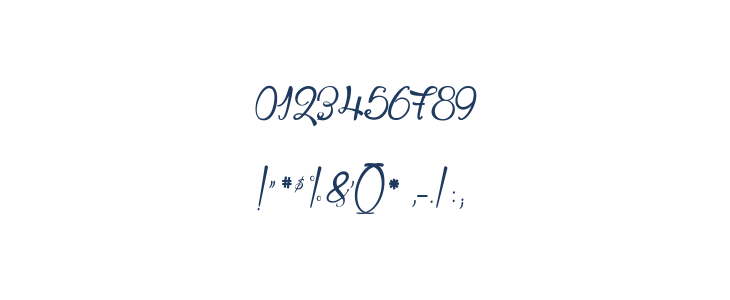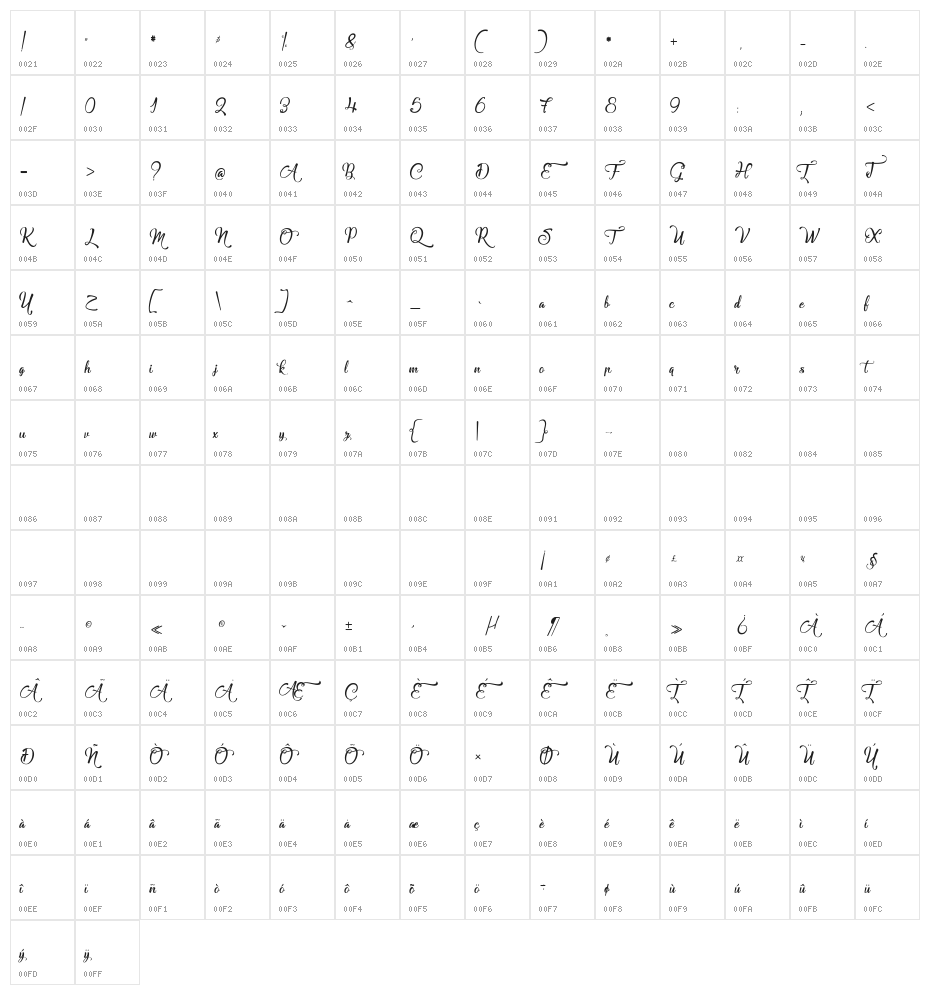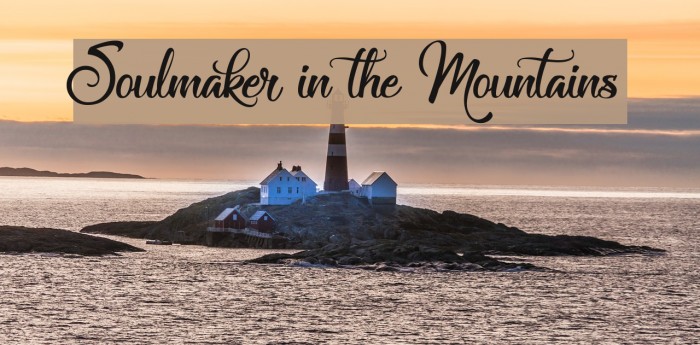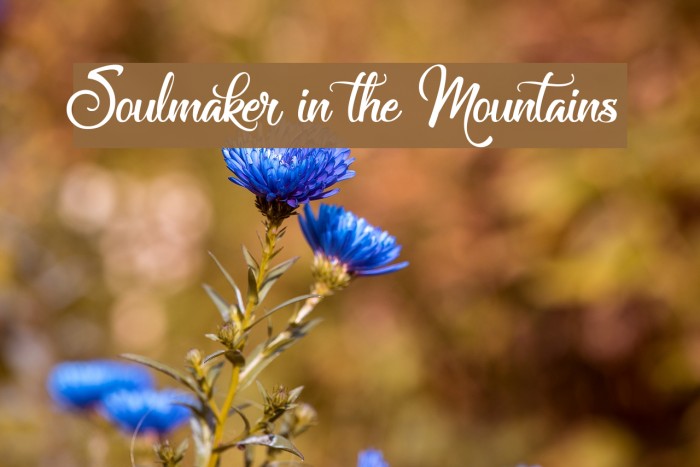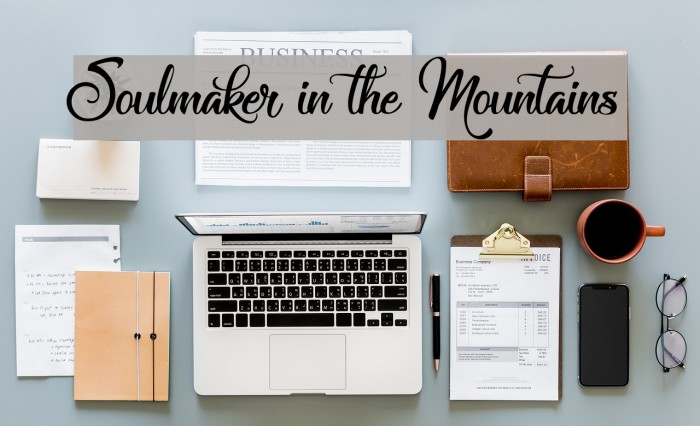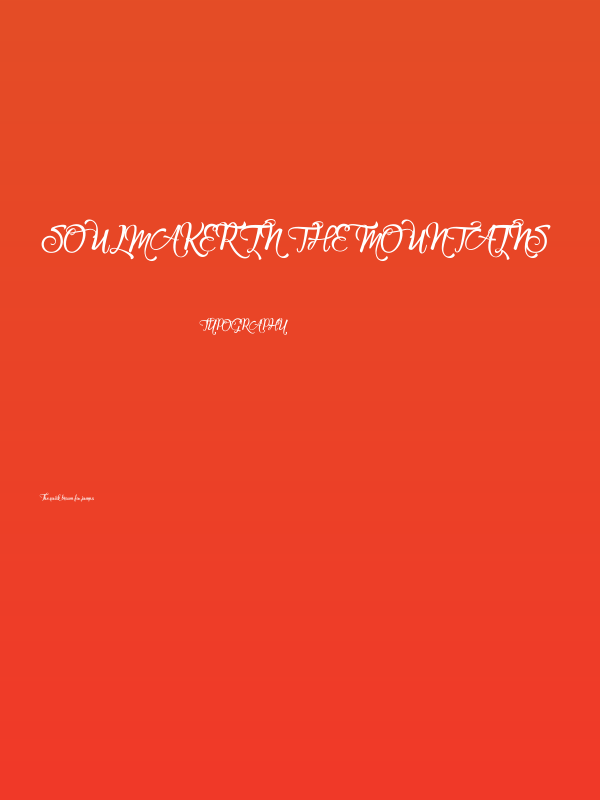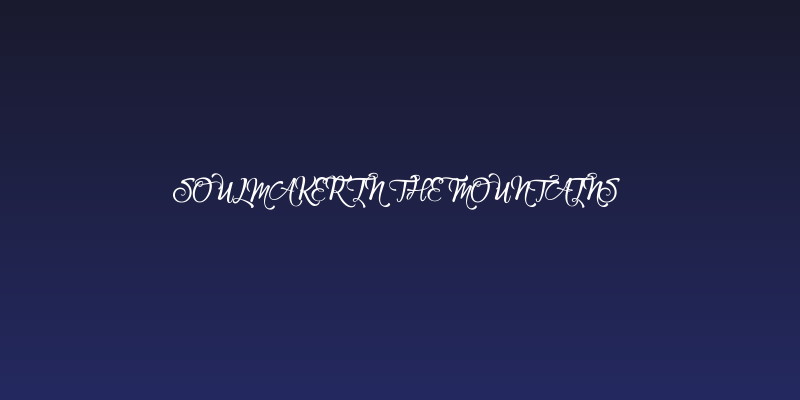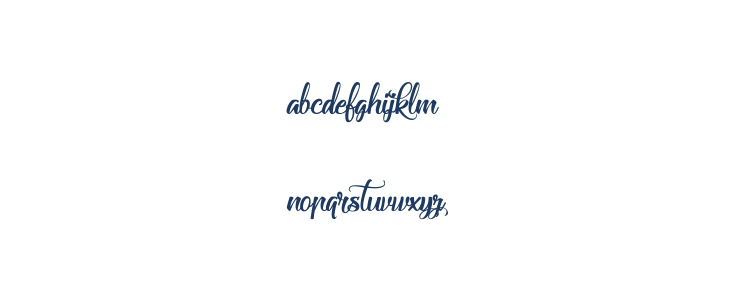
Soulmaker in the Mountains Font
Soulmaker in the Mountains Description
This font features an elegant and flowing script style, characterized by its intricate and decorative letterforms. The uppercase letters are particularly ornate, with sweeping curves and flourishes that give a sense of movement and grace. The lowercase letters maintain a consistent style, offering a harmonious blend with the uppercase. The numerals are distinct yet complement the overall aesthetic, while the special characters are designed to match the decorative theme. This font exudes a sense of sophistication and artistry, making it suitable for projects that require a touch of elegance.
| Proposed Projects | Ideal for wedding invitations, luxury branding, greeting cards, and artistic projects. |